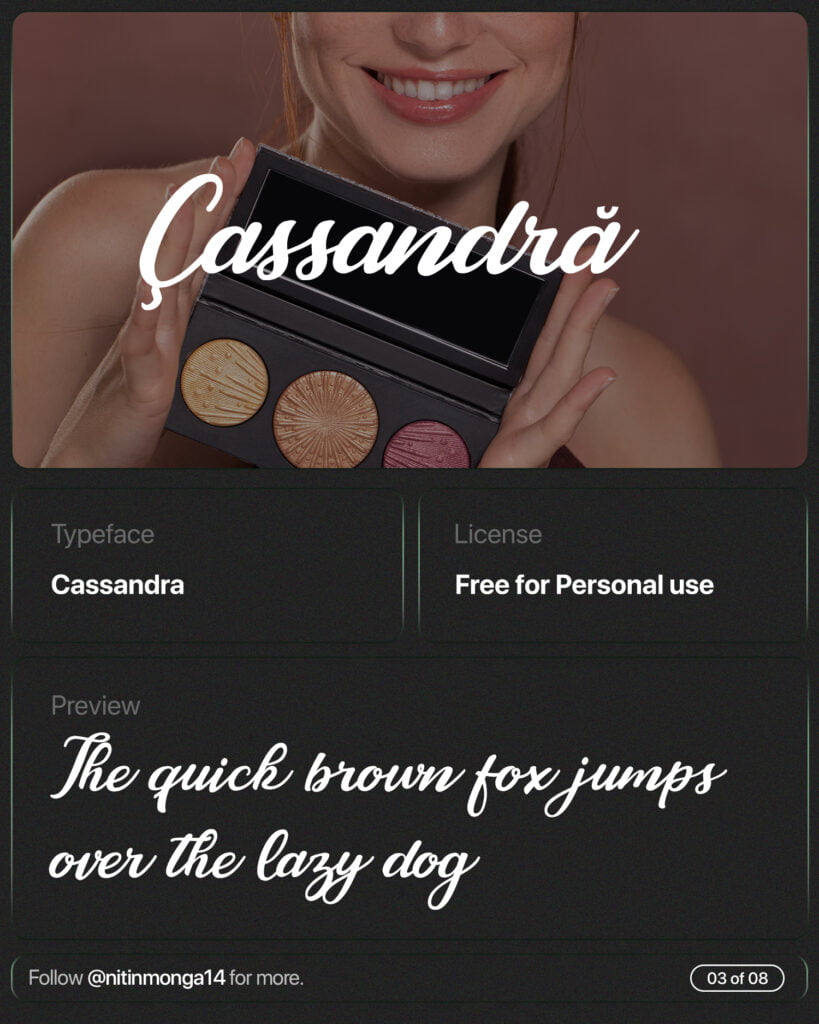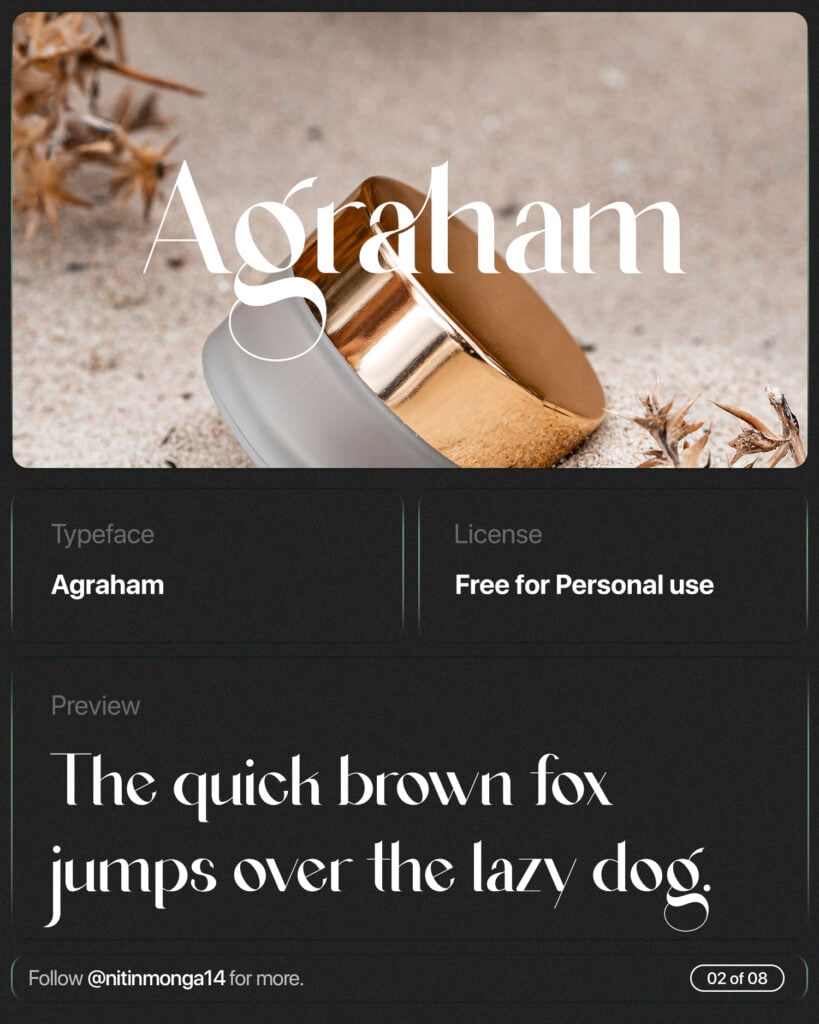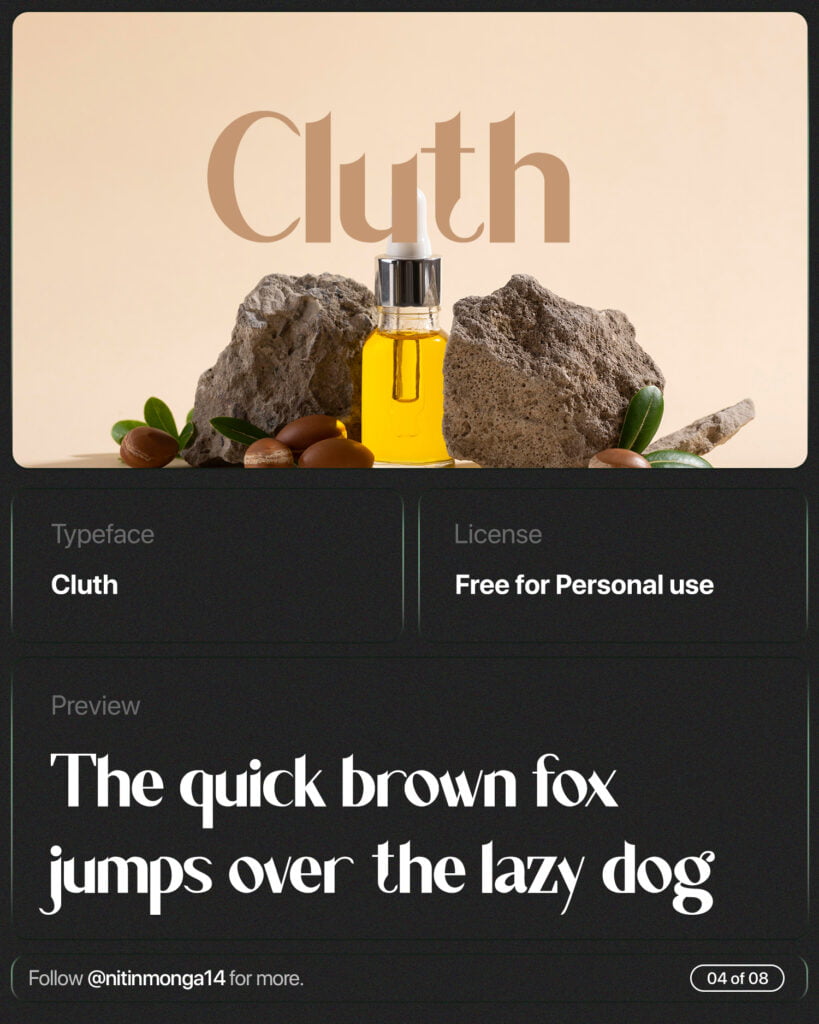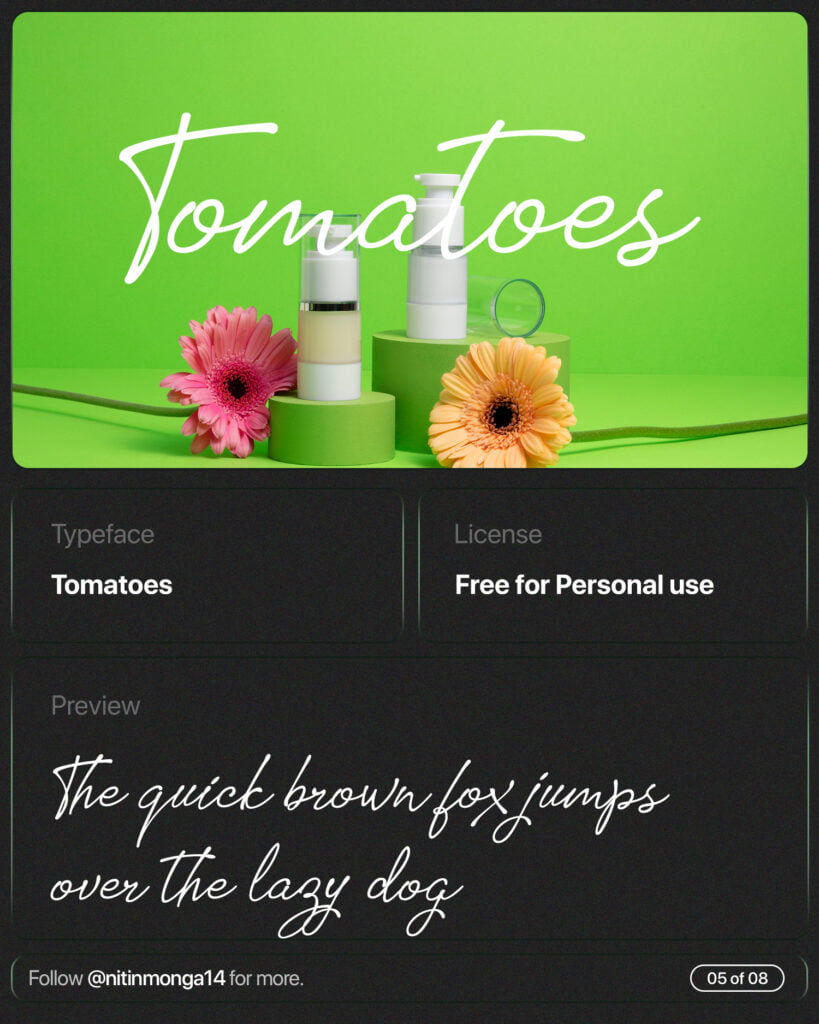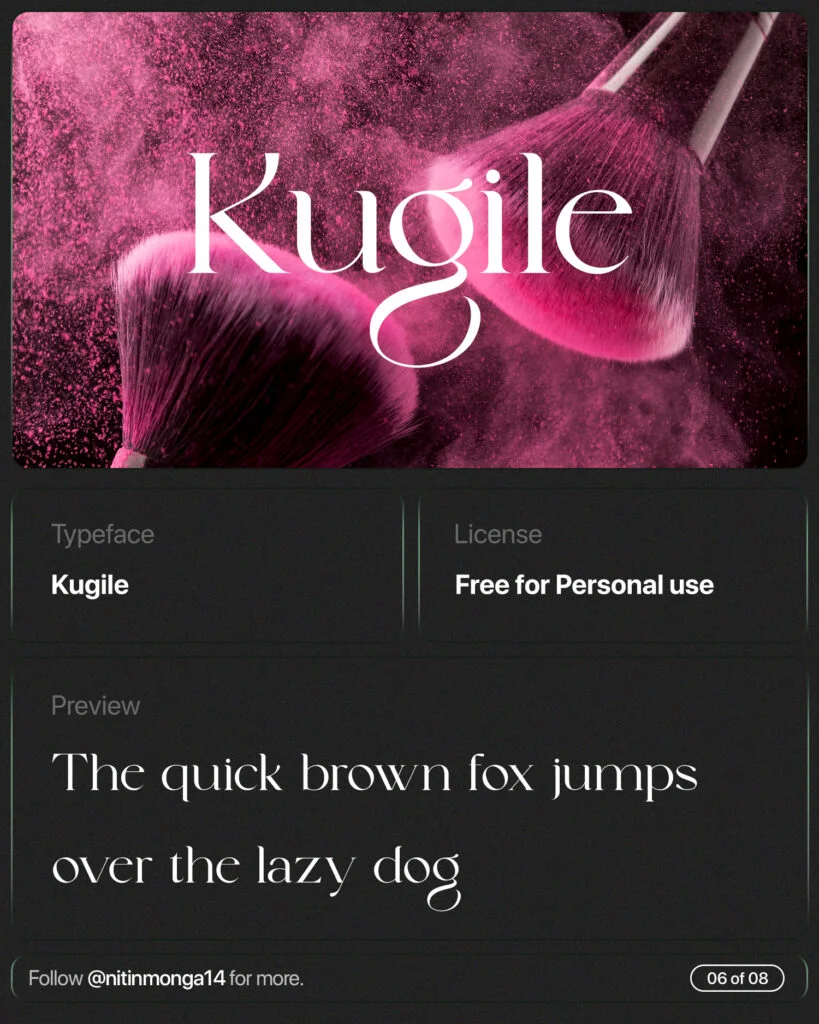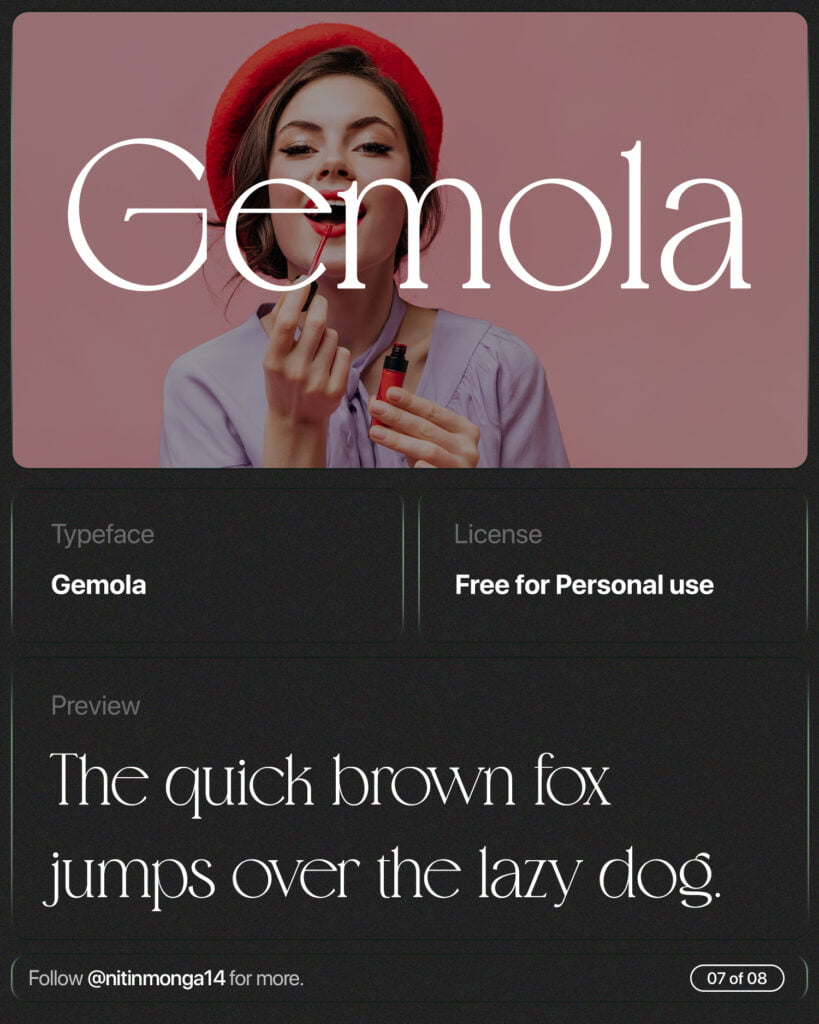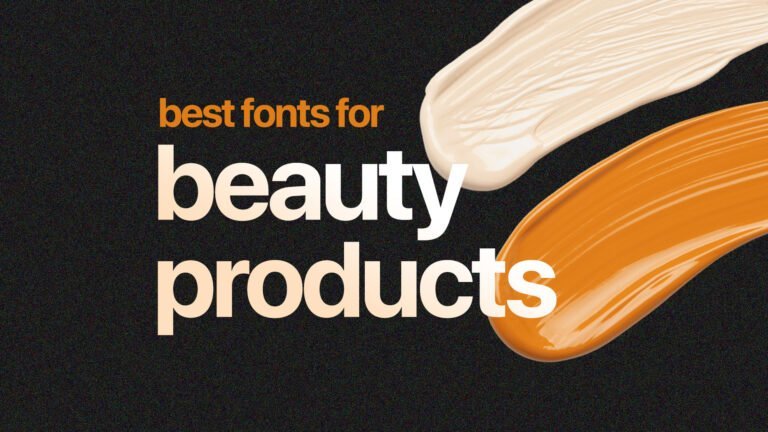
6 Best Fonts for Beauty Products 2024 Free Download
With beautiful script type, professional sans serif font and more.❤️
Agraham Font
Cassandra Font
Cluth Font
Tomatoes Font
Kugile Font
Gemola Font